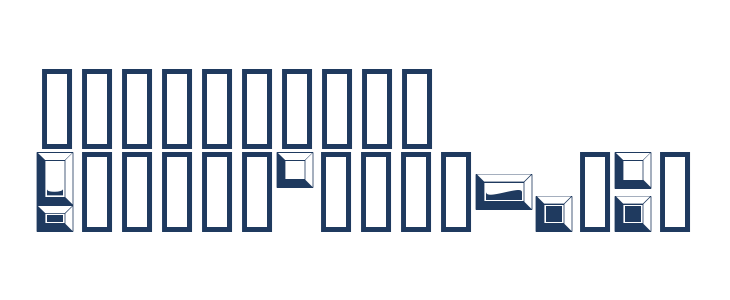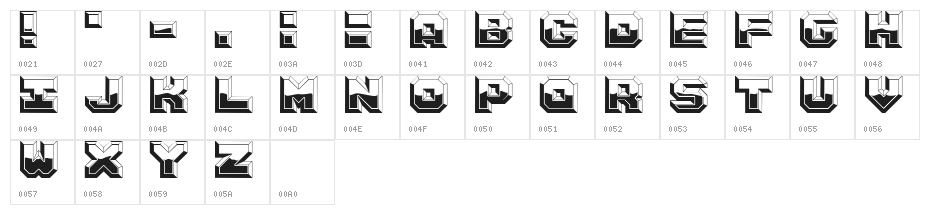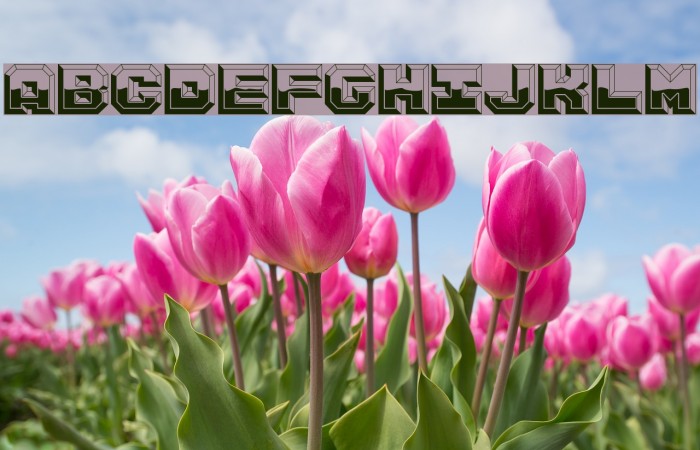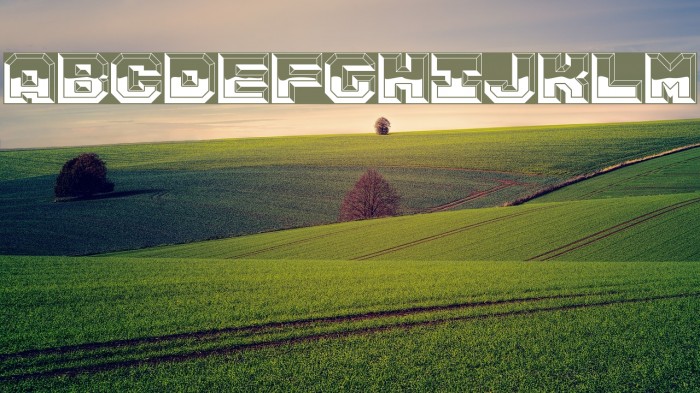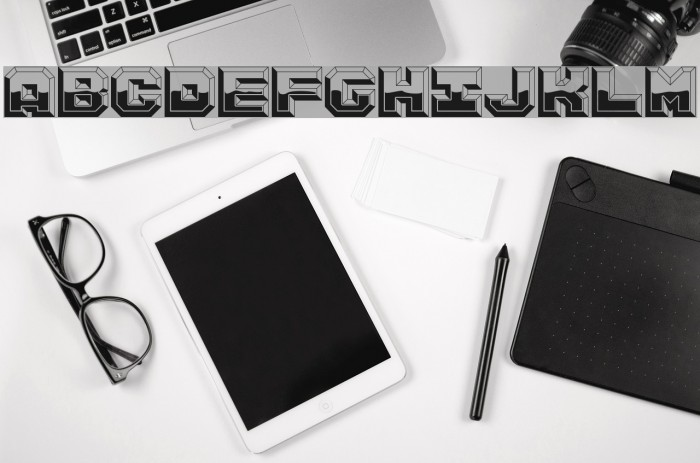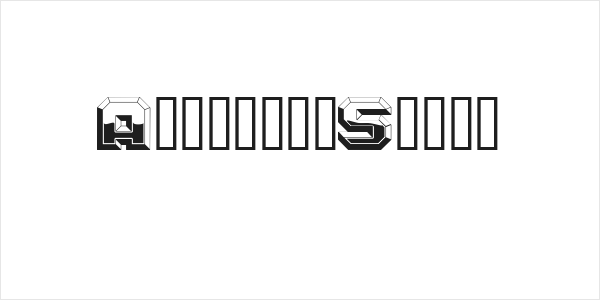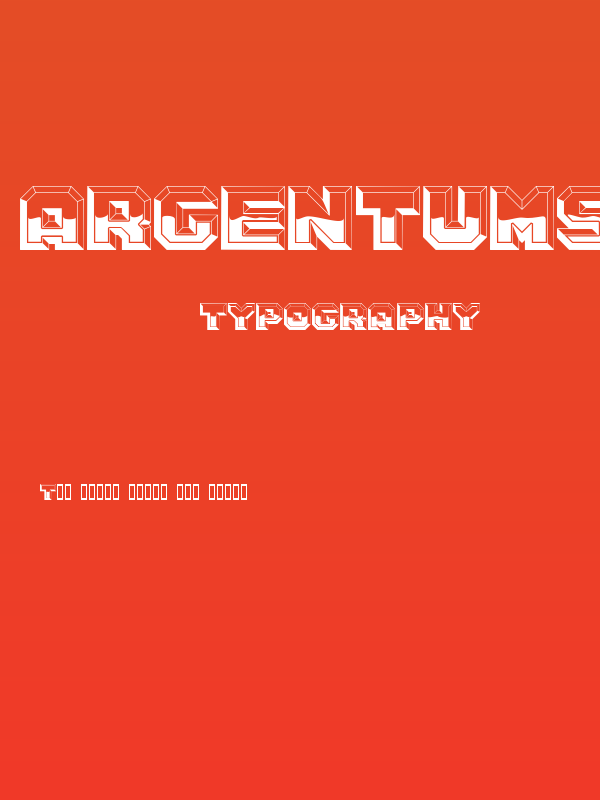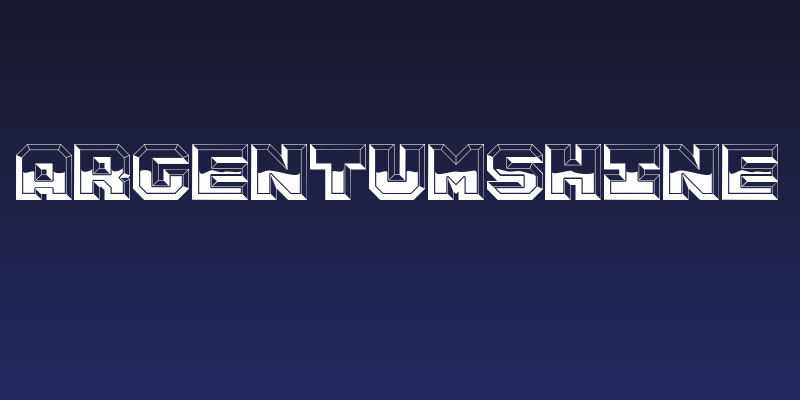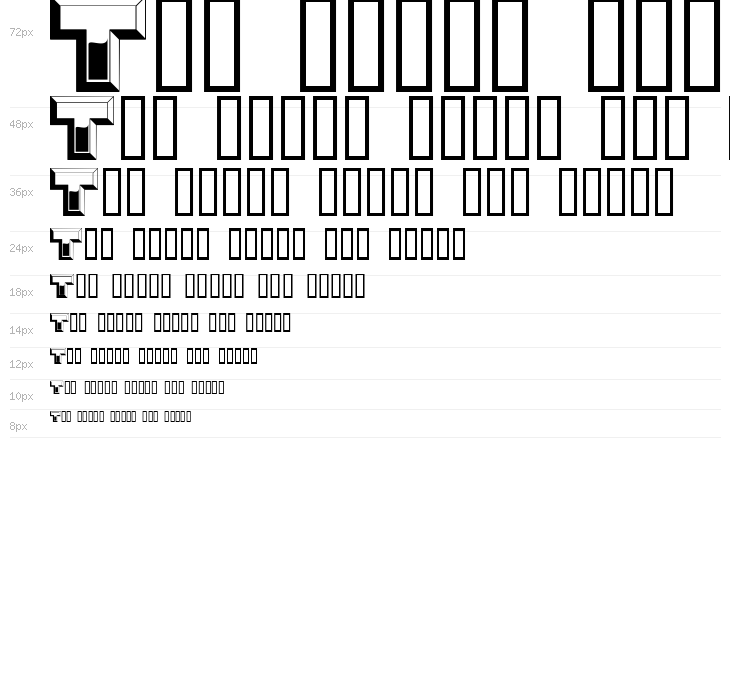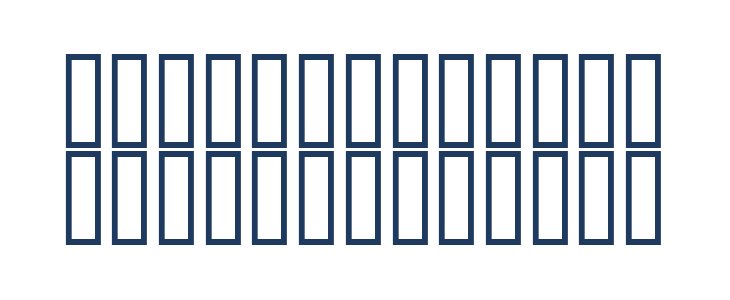
ArgentumShine Font
ArgentumShine Description
This font features a bold, three-dimensional design with a metallic sheen, giving it a futuristic and industrial appearance. The letters are constructed with sharp, angular edges and a reflective surface effect that suggests depth and volume. The style is reminiscent of chrome or polished metal, making it stand out with its high contrast and striking visual impact. The uppercase letters are consistent in their geometric form, providing a cohesive and uniform look across the alphabet. This font is ideal for projects that require a modern and edgy aesthetic, such as technology branding, sci-fi themed designs, or any creative work that seeks to convey a sense of innovation and sleekness.
| Proposed Projects | Ideal for technology branding, sci-fi themed designs, and innovative creative projects. |